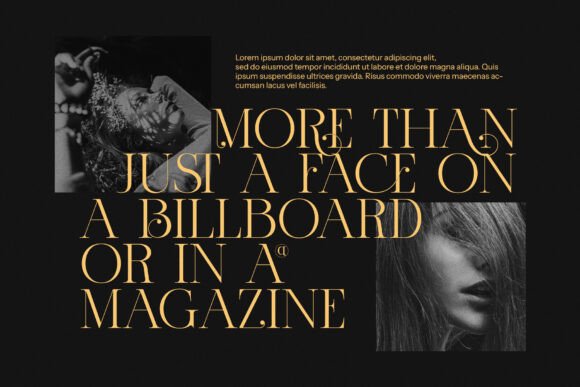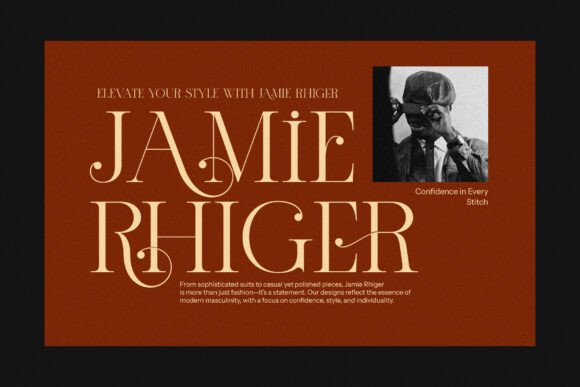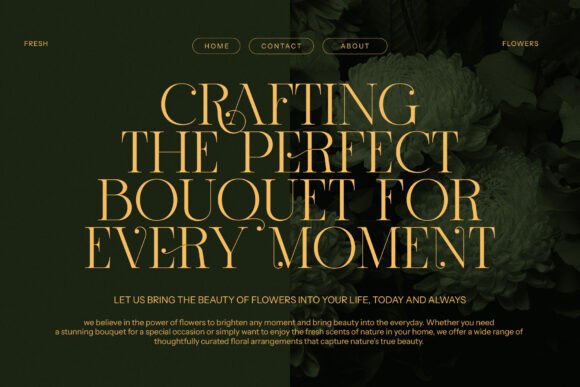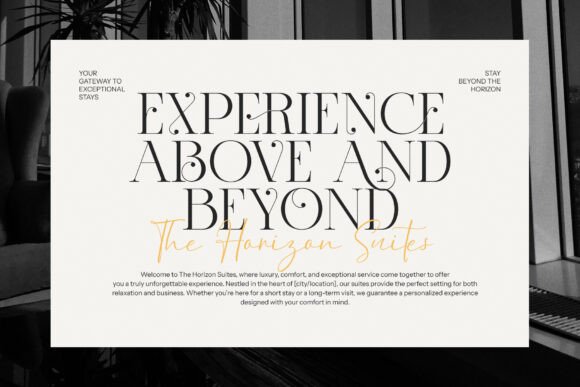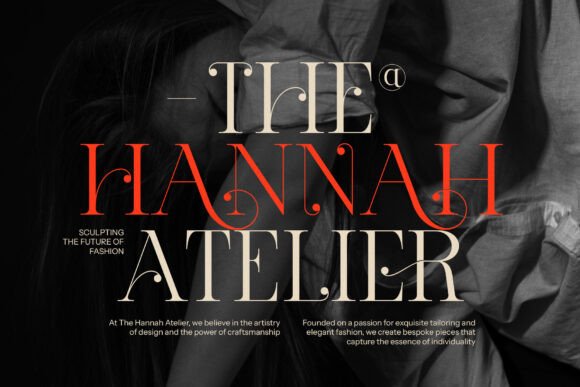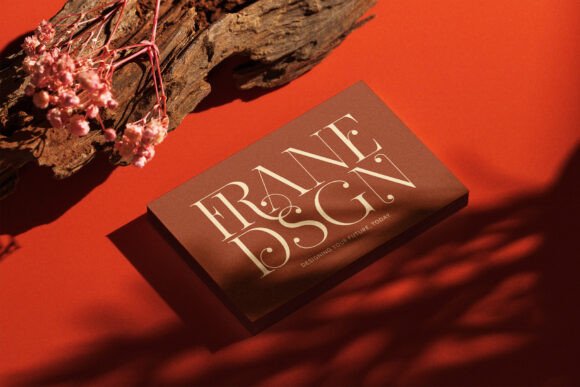
A Game-Changing Typeface: Frane Rhiger Font
Frane Rhiger is a beautifully crafted typeface that embodies modern sophistication and timeless elegance. With its exquisite ligatures and graceful alternate forms, this serif font is designed to make your projects stand out with unparalleled style. Each letter is thoughtfully balanced, blending clean lines with subtle details to create a font that feels both refined and approachable.
- 💯 Exquisite ligatures and alternate forms for added elegance
- ✅ Perfectly balanced letters for excellent readability
- 🎨 Versatile and adaptable to various design projects, from luxury branding to editorial layouts
- 🔥 Stunning visual appeal that elevates any design
- ⚠️ Limited availability of certain OpenType features in some software
- 🤯 Can be overwhelming to navigate the vast array of glyphs and stylistic alternates
Frane Rhiger Font was designed by a renowned type designer who sought to create a font that embodied modern sophistication and timeless elegance. Inspired by classic serif fonts, the designer aimed to craft a typeface that would be both refined and approachable. After months of meticulous work, Frane Rhiger Font was born, and it’s been making waves in the design community ever since.
Q: What makes Frane Rhiger Font unique?
A: Frane Rhiger Font stands out with its exquisite ligatures, graceful alternate forms, and thoughtfully balanced letters.